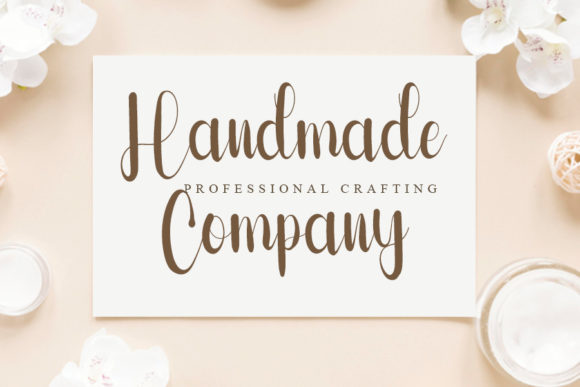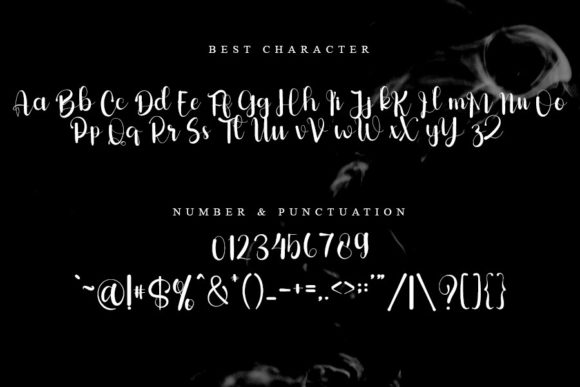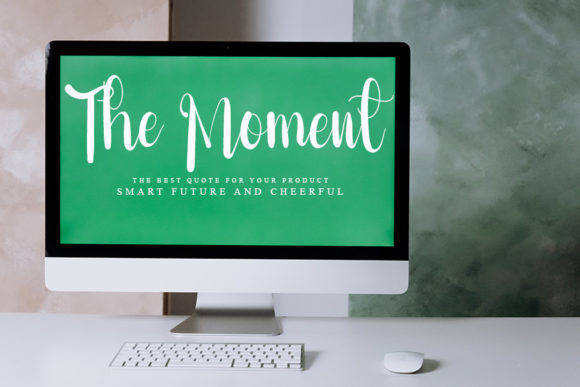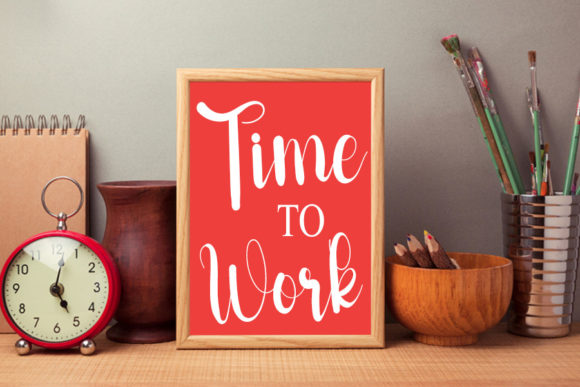
Working Handmade Font
About Working Handmade Font
Working Handmade is a delicate and elegant calligraphy font. Its distinct and well rounded letters make this font a masterpiece. Every letter has a unique and beautiful touch, which will make your design come alive!